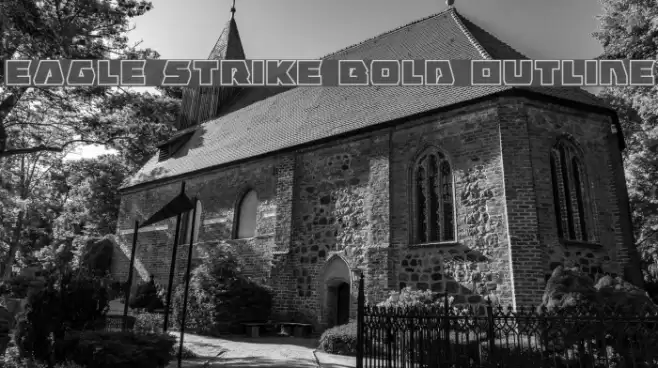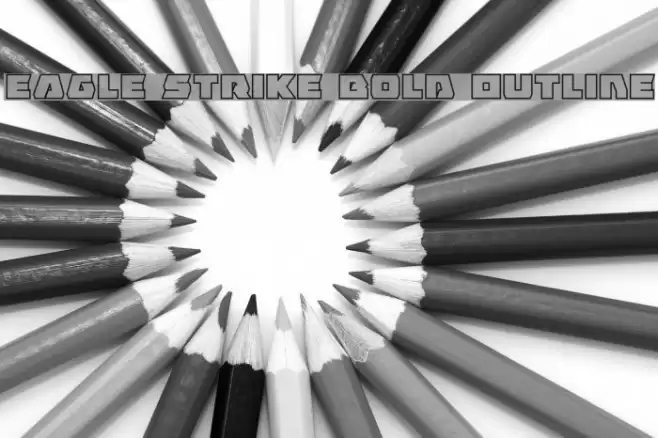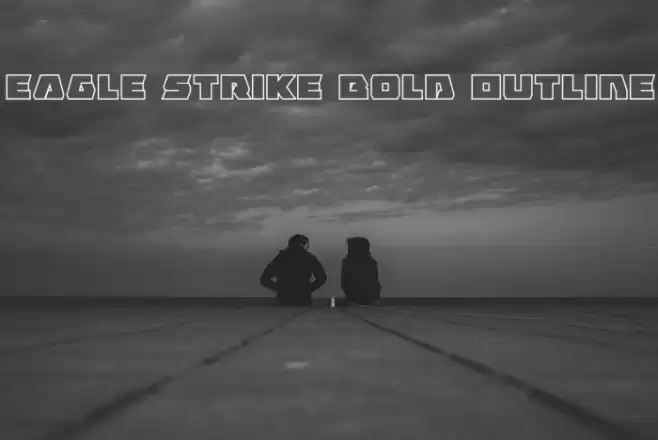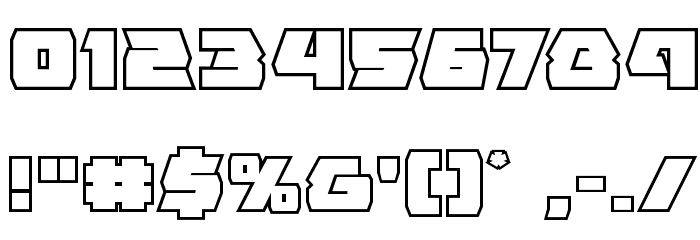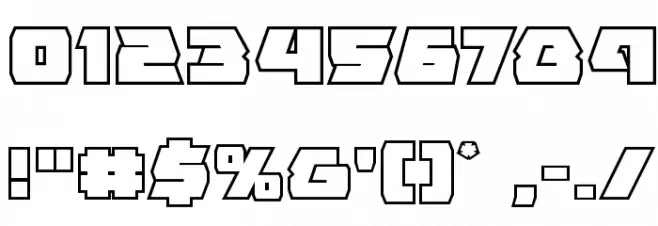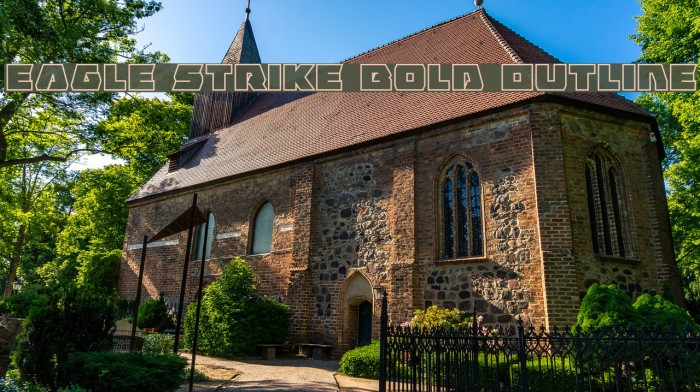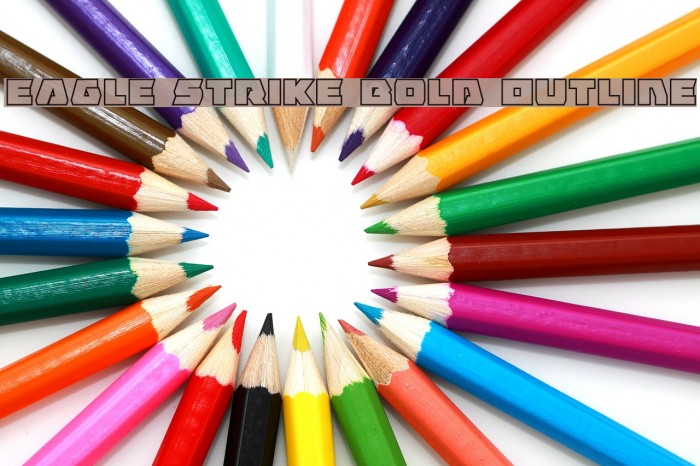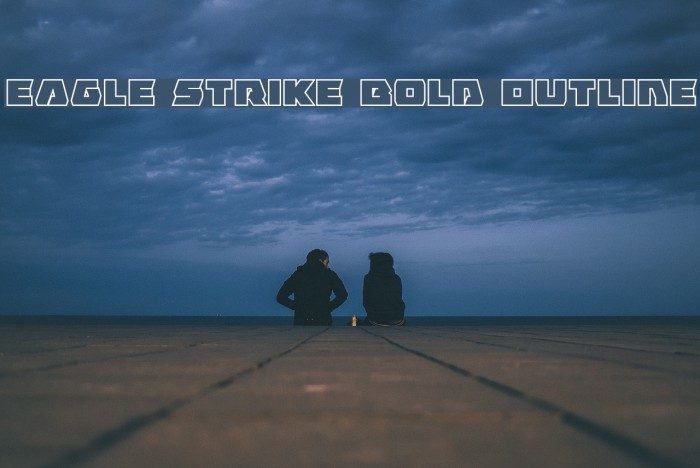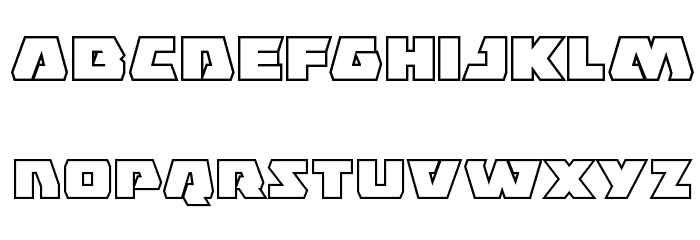
Eagle Strike Bold Outline Font
Eagle Strike Bold Outline Description
This font features a bold, geometric design with a distinct outline style. Each character is crafted with sharp angles and a futuristic aesthetic, giving it a striking and dynamic appearance. The uppercase letters are particularly prominent, with a strong presence that commands attention. The numbers and special characters maintain the same bold outline, ensuring consistency across all elements. This font is ideal for projects that require a modern and edgy look, such as technology branding, sports team logos, or video game titles.
A bold, geometric outline font with a futuristic style from Uncategorized fonts.
- Proposed Projects: Ideal for technology branding, sports logos, video game titles, and modern posters.